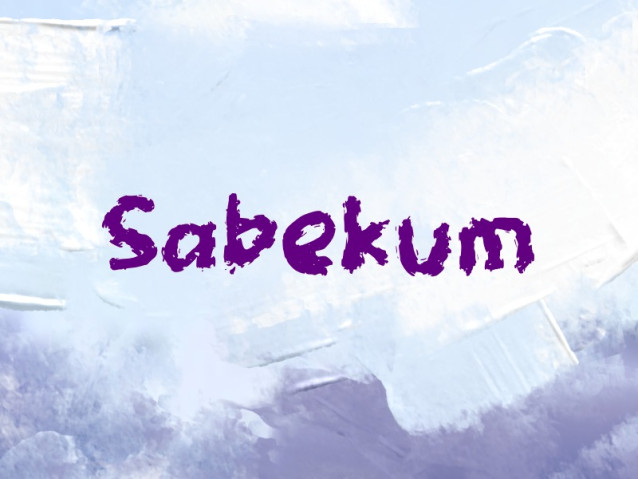
Sabekum Font
Sabekum Font is a simple and modern display font suitable for quotes, logos, headings, titles, and many more. Use it on any of your creative projects, and your designs will become outstanding!